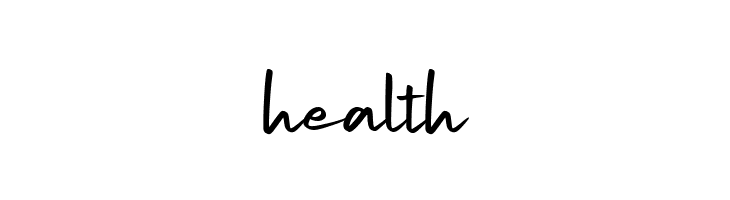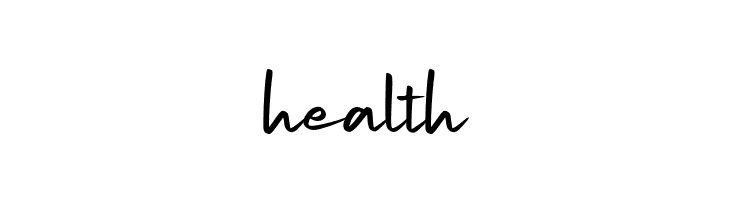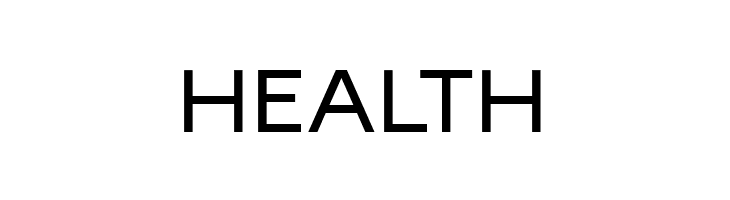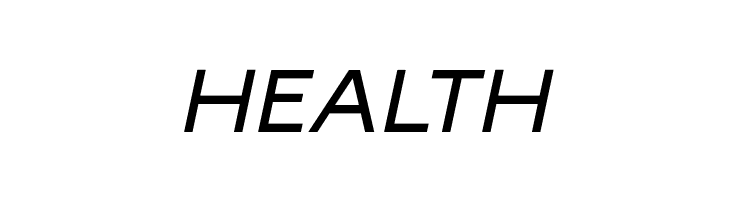
A lively handwritten font with fluid, expressive strokes.
A bold, expressive handwritten font with dynamic strokes and artistic flair.
A lively, cursive script font with fluid, connected characters.
A lively handwritten font with fluid strokes and a playful, stylish appearance.
A dynamic and elegant script font with flowing, slanted letterforms.
A dynamic, flowing script font with elegant, cursive letterforms and a modern, handwritten style.
A dynamic handwritten font with smooth, elegant curves and a playful flair.
A modern, clean sans-serif font with uniform stroke width and high legibility.
A modern, elegant cursive script with a flowing, handwritten style.
A modern sans-serif italic font with consistent stroke thickness and a dynamic slant.